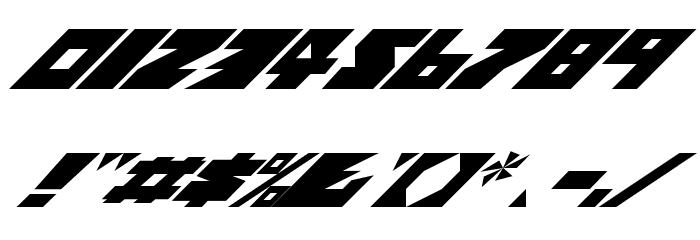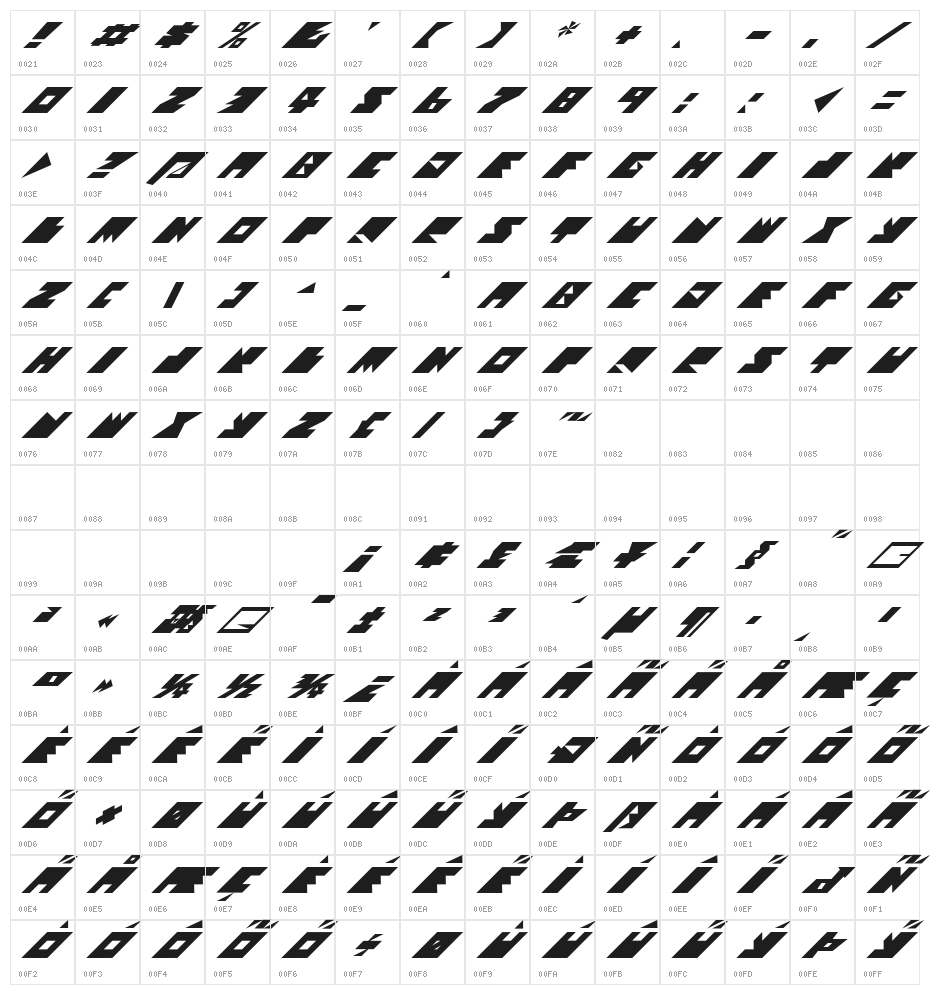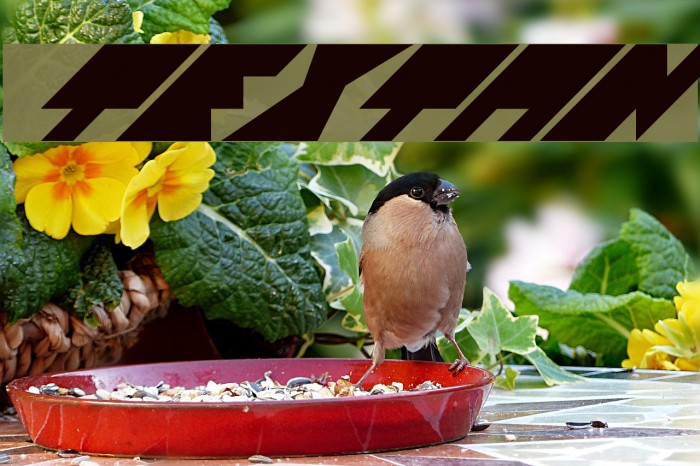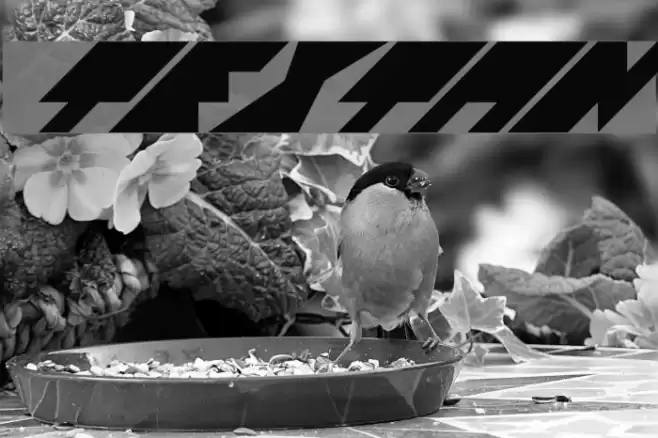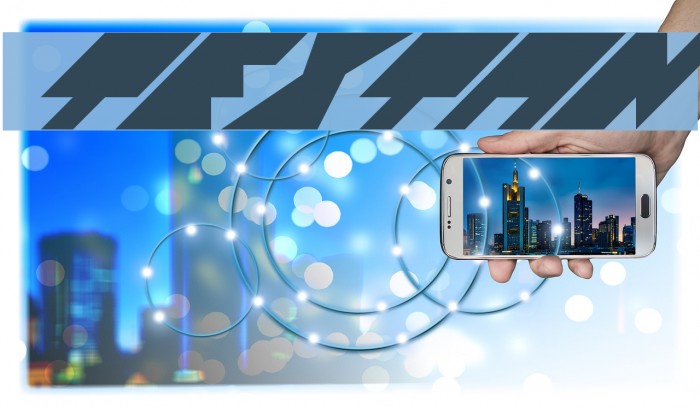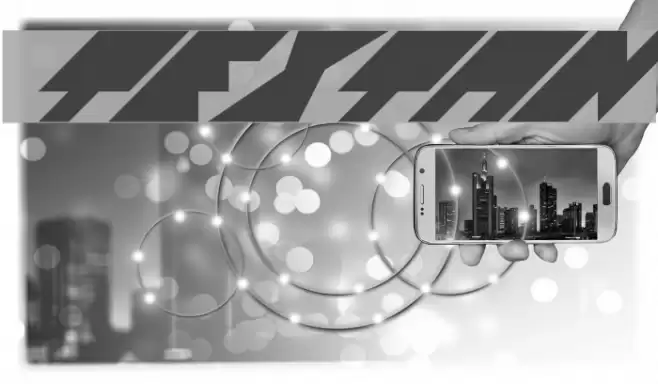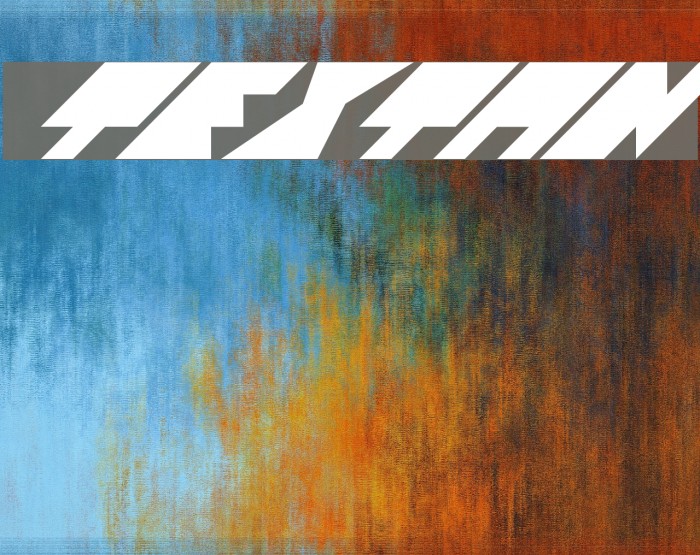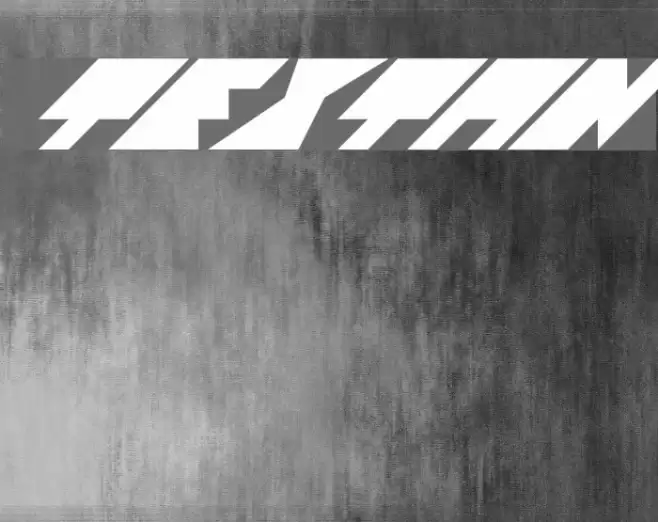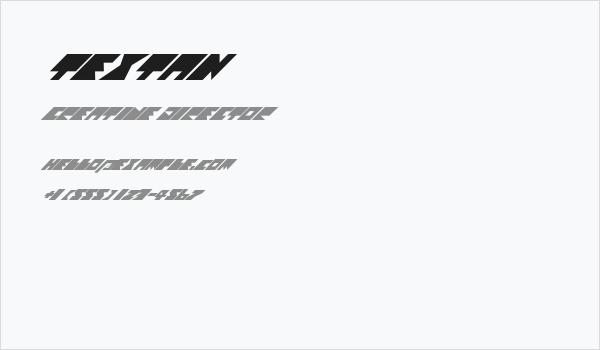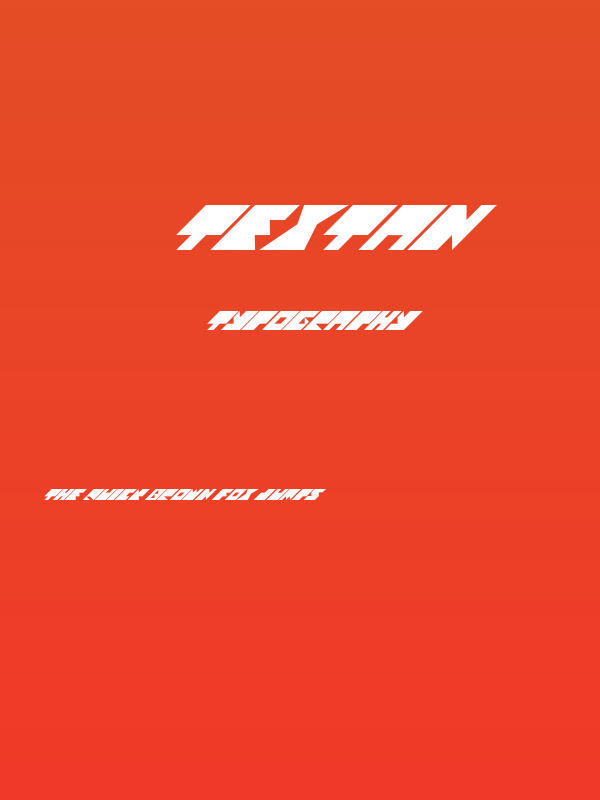
Textan Font
Textan Description
This font features a bold, angular design with sharp edges and a futuristic aesthetic. The characters are heavily stylized, with a distinct geometric structure that gives them a dynamic and aggressive appearance. The uppercase and lowercase letters maintain a consistent style, emphasizing sharp diagonals and pointed terminals. Numbers and special characters follow the same design principles, ensuring uniformity across the font. This font's unique style makes it stand out, ideal for projects that require a strong visual impact.